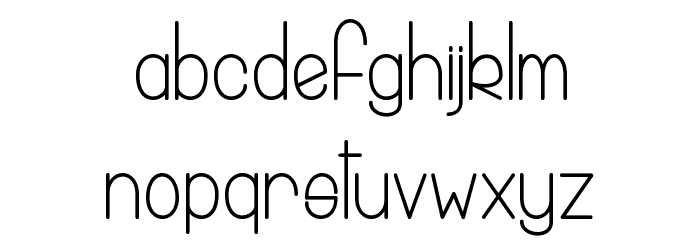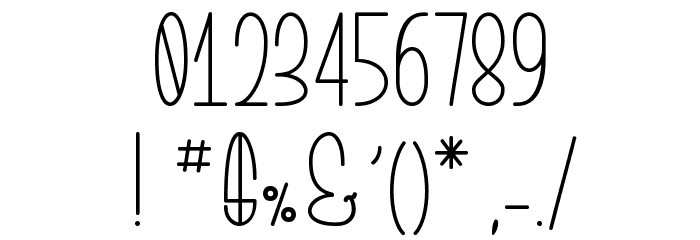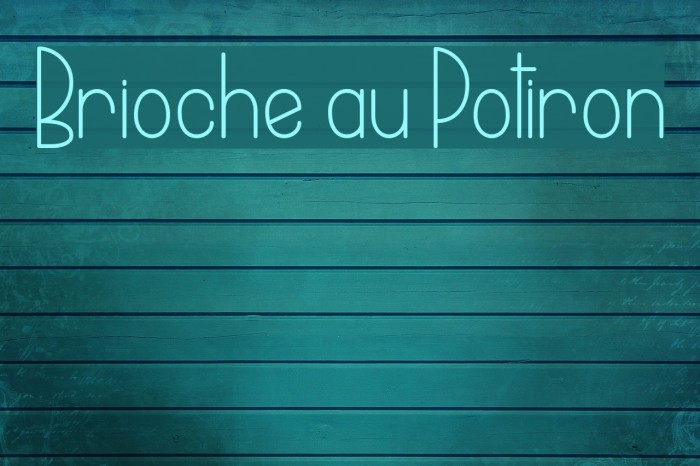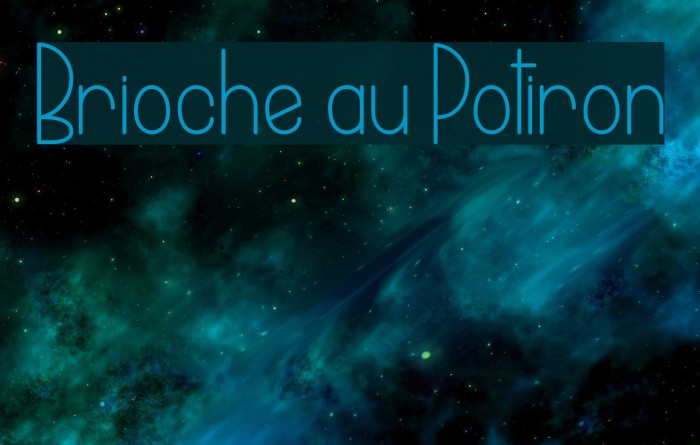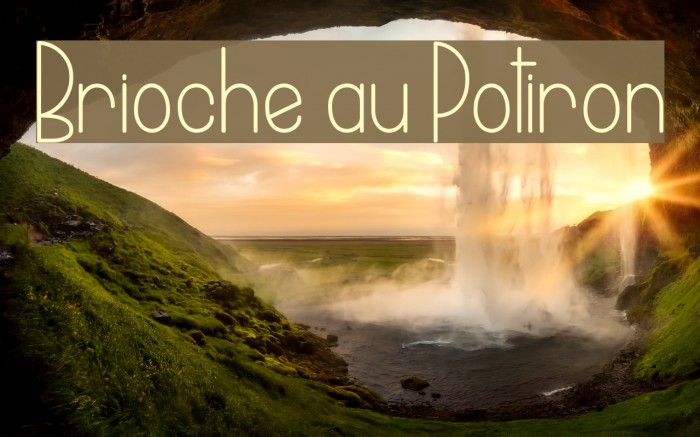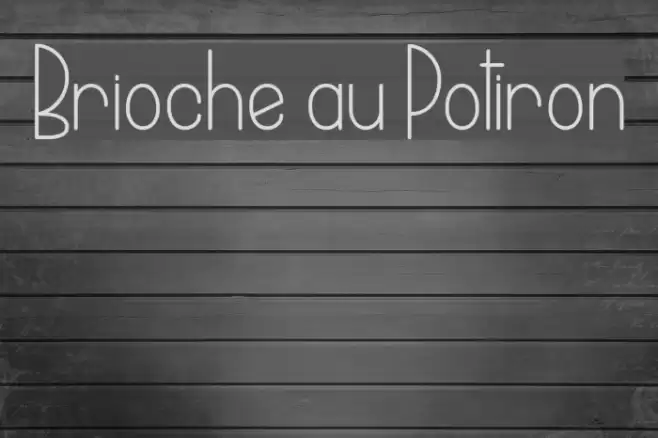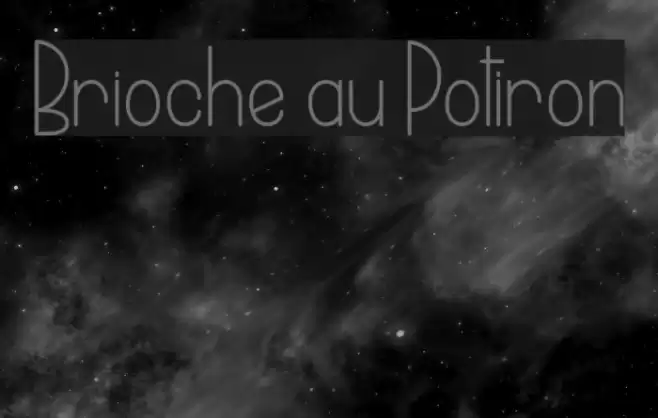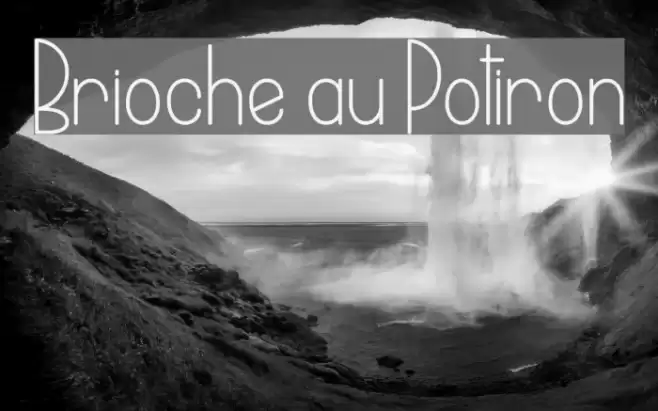
Brioche au Potiron Font
This font features a playful and whimsical design with elongated, narrow characters that give it a unique and quirky appearance. The strokes are consistent in width, contributing to a clean and modern look. The uppercase letters are tall and slender, while the lowercase letters maintain a similar style with a slightly more rounded approach. Numbers and special characters are designed to match the overall aesthetic, ensuring a cohesive appearance across all text. The font's distinct personality makes it suitable for creative and informal projects.
A playful, narrow font with consistent stroke width and a whimsical style.
- Proposed Projects: Ideal for children's books, playful branding, invitations, and creative posters.
- Overall Style: Playful